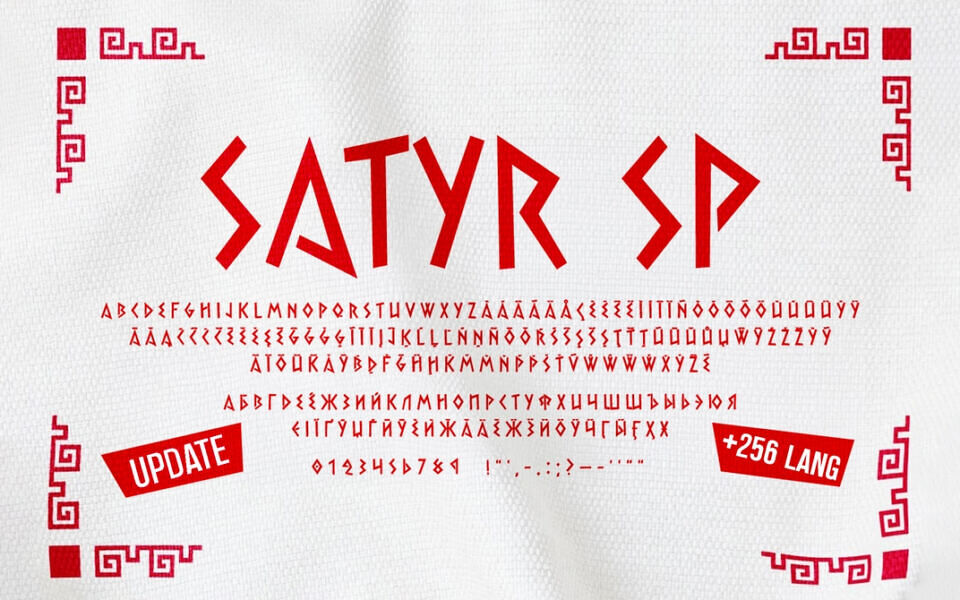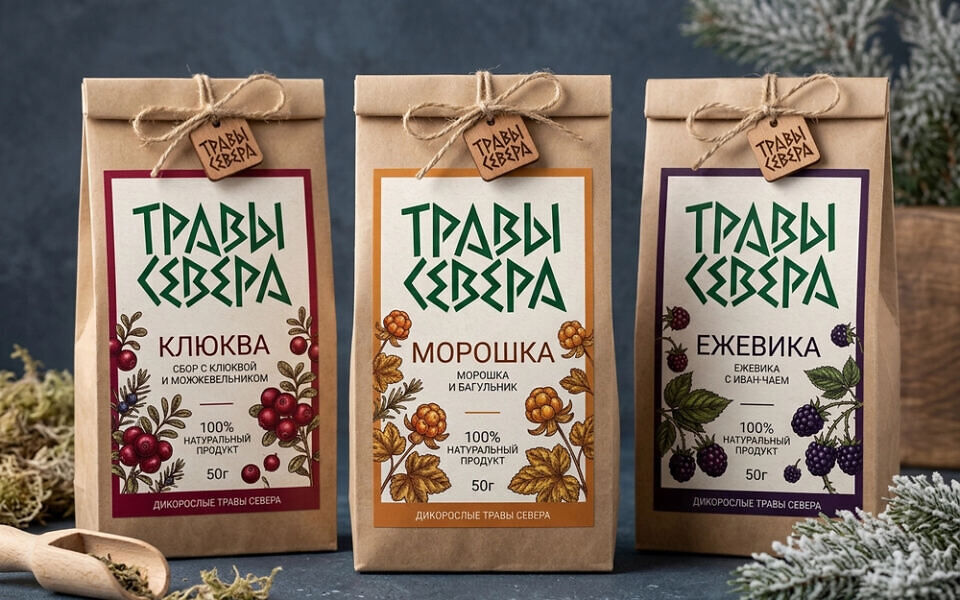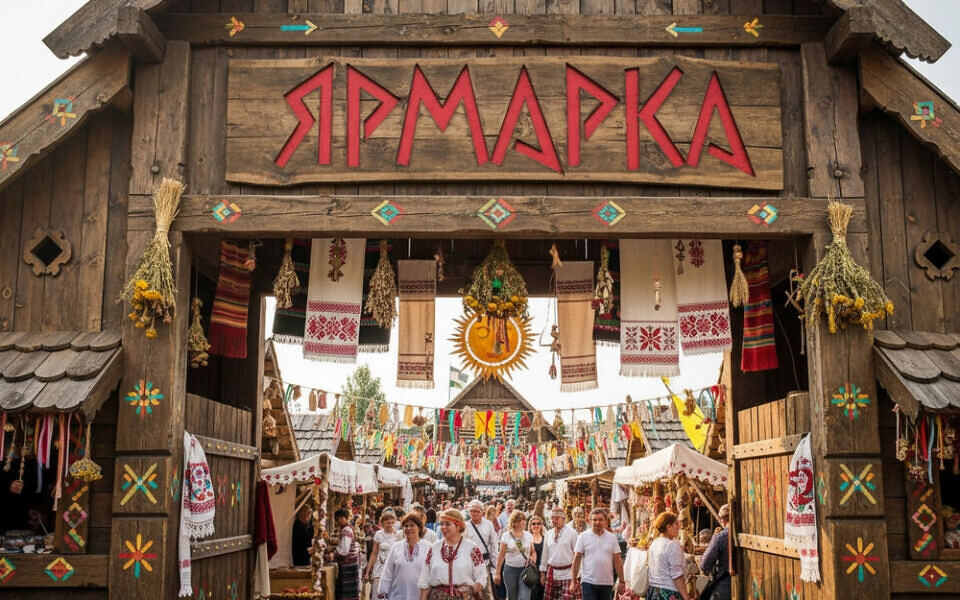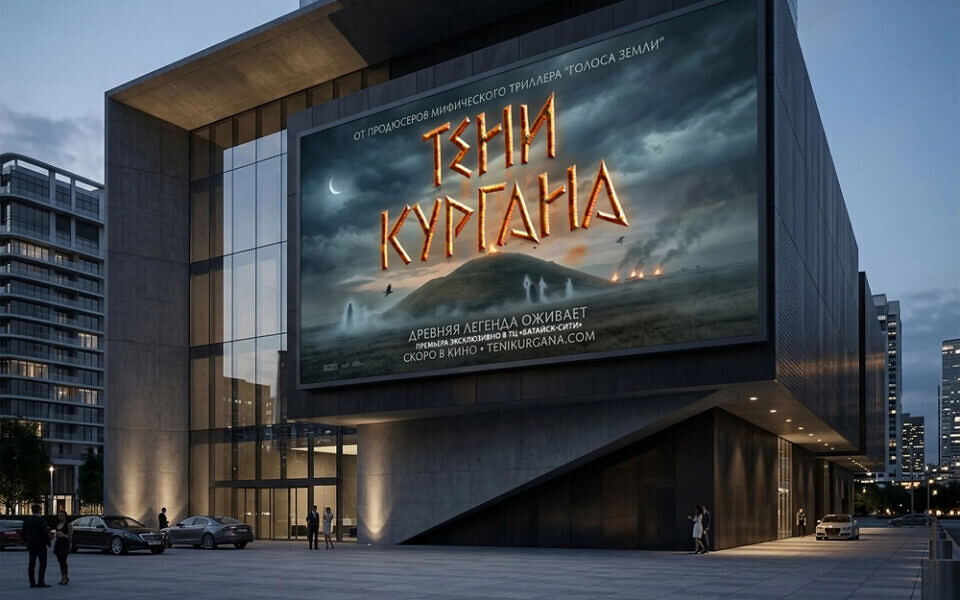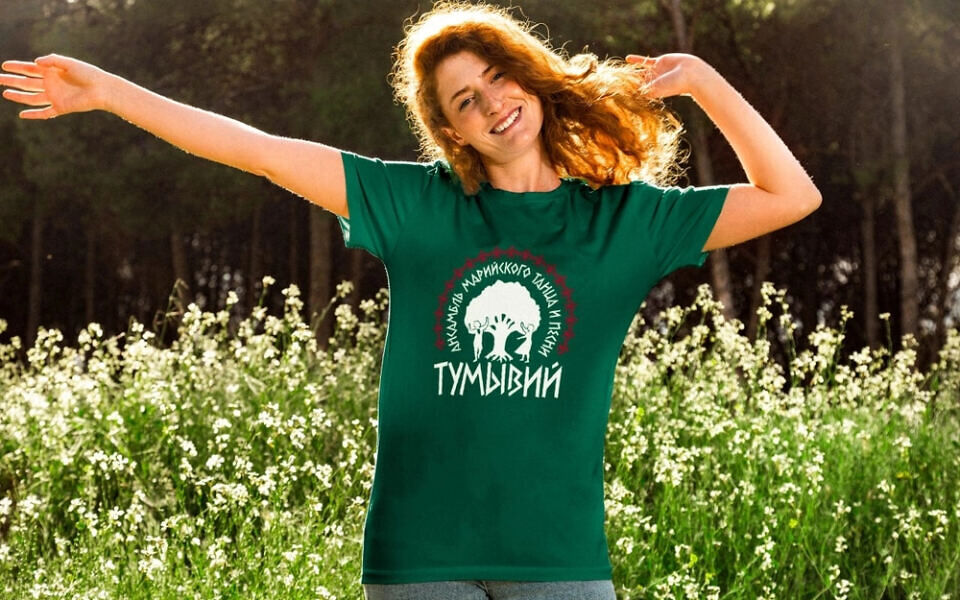
Satyr SP is a display font characterized by sharp, jagged forms and an uneven, lively rhythm. Its design reflects a deep connection to folk motifs, traditional ornamentation, and the imagery of ancient European cultures.
It looks bold, slightly rugged, and highly expressive, making it an excellent choice for logos, packaging, branding, and projects with an ethnic, mystical, or folkloric character.